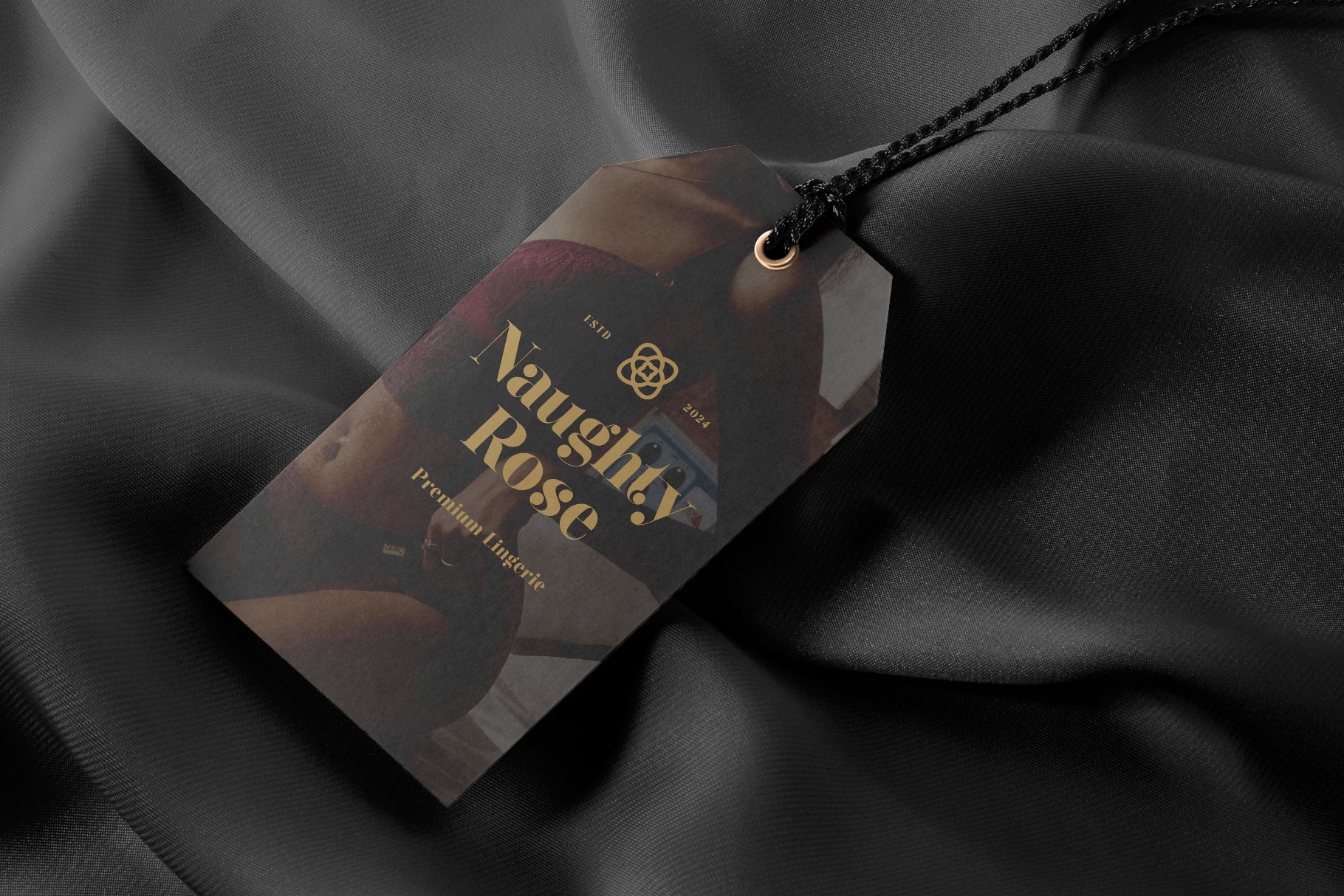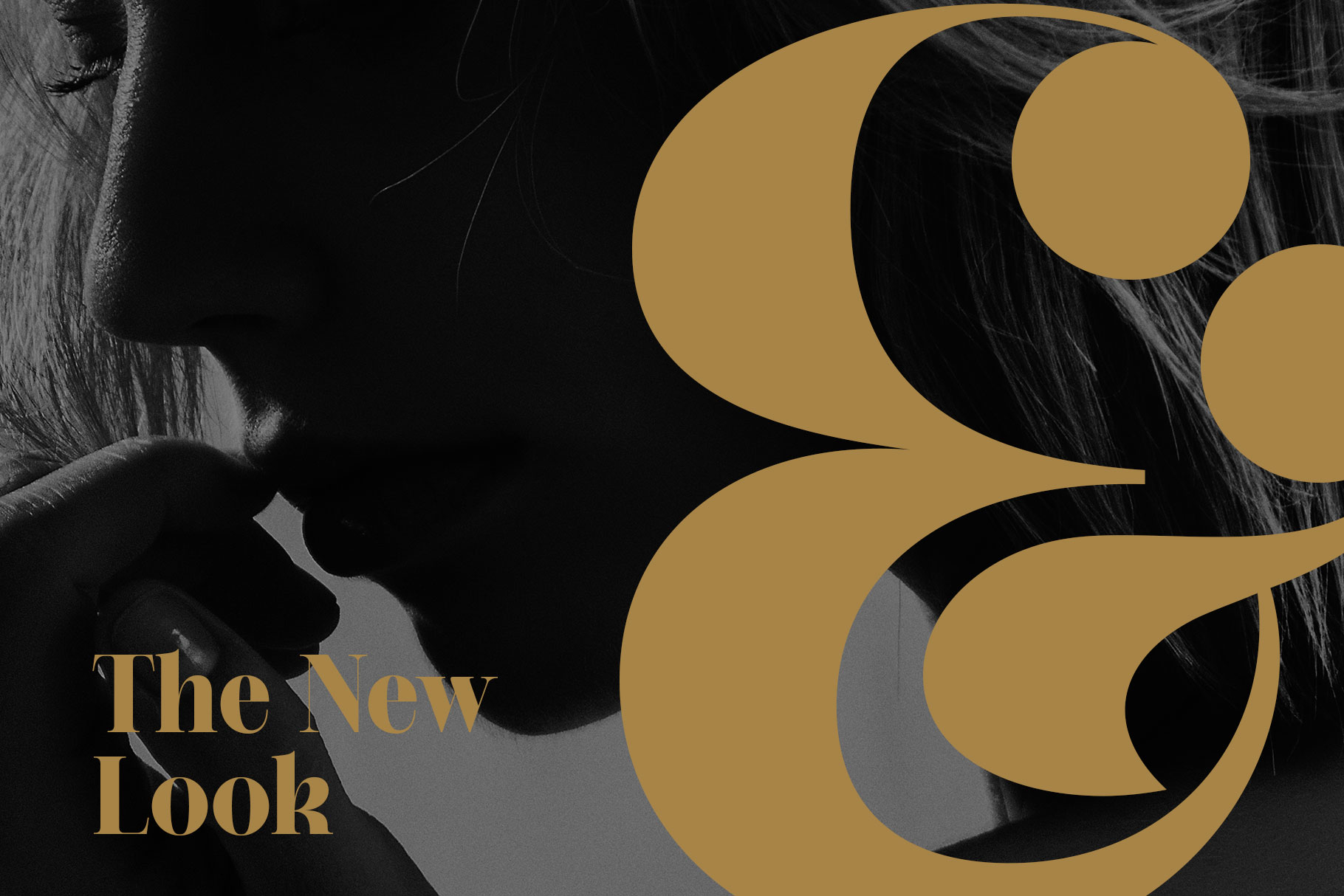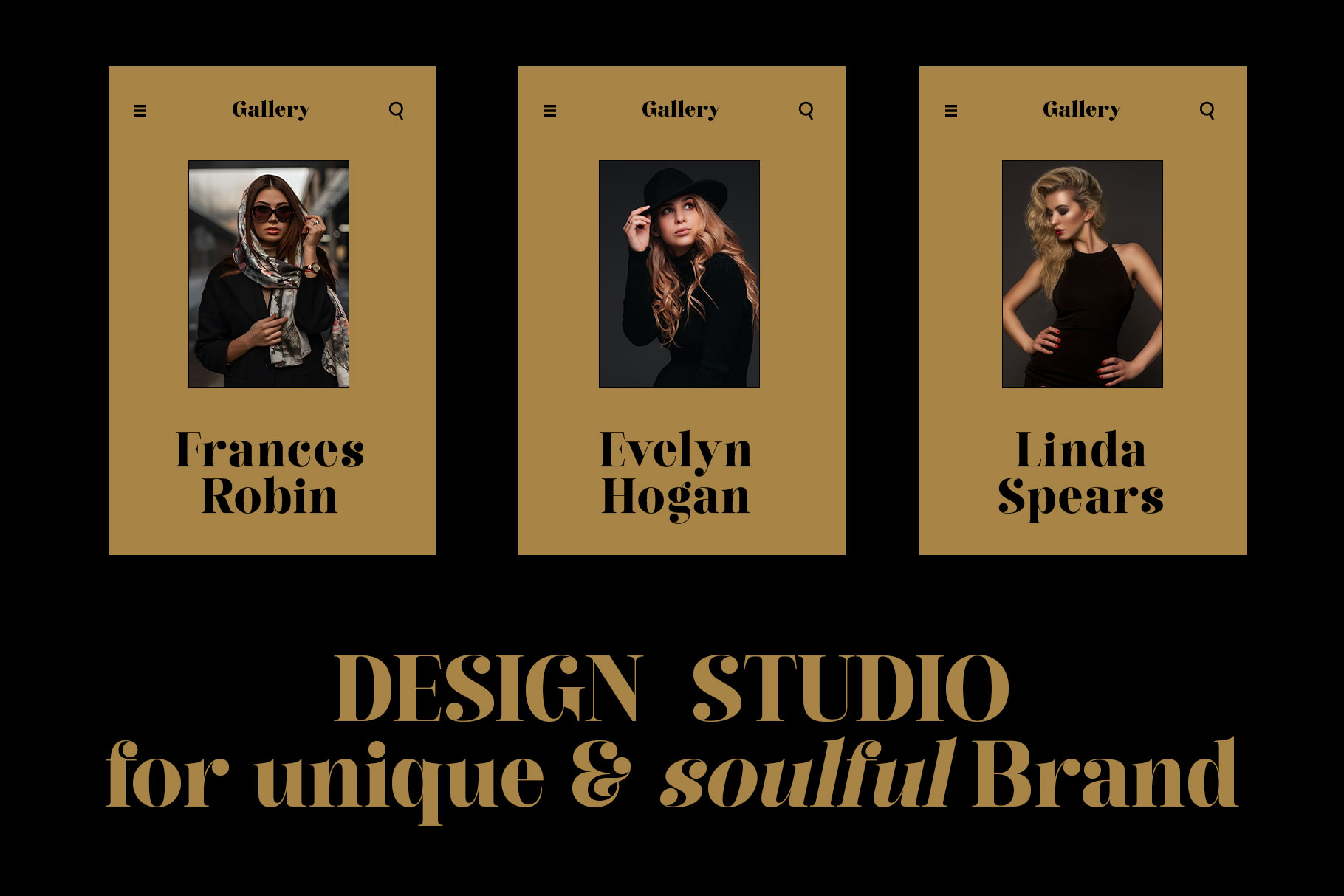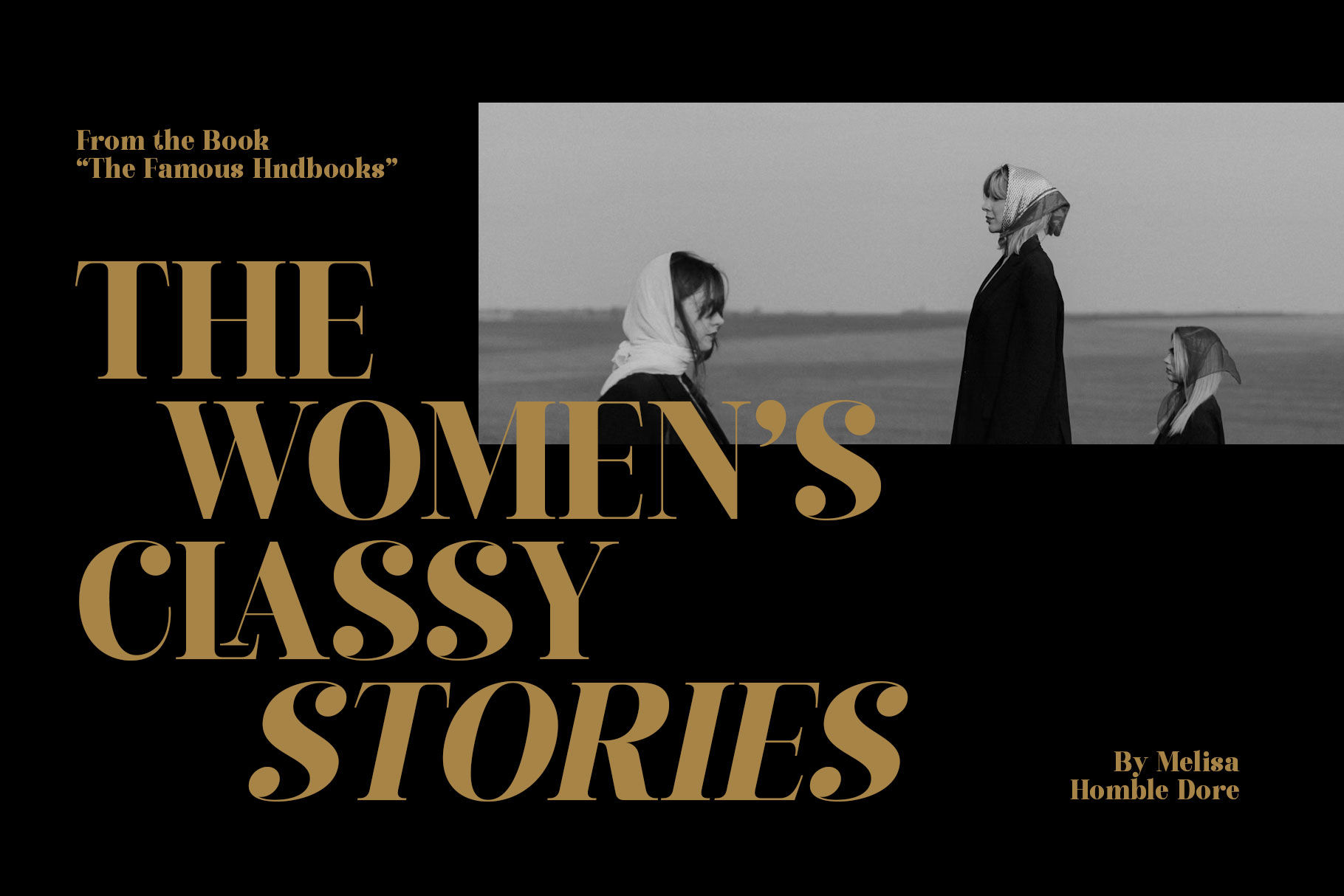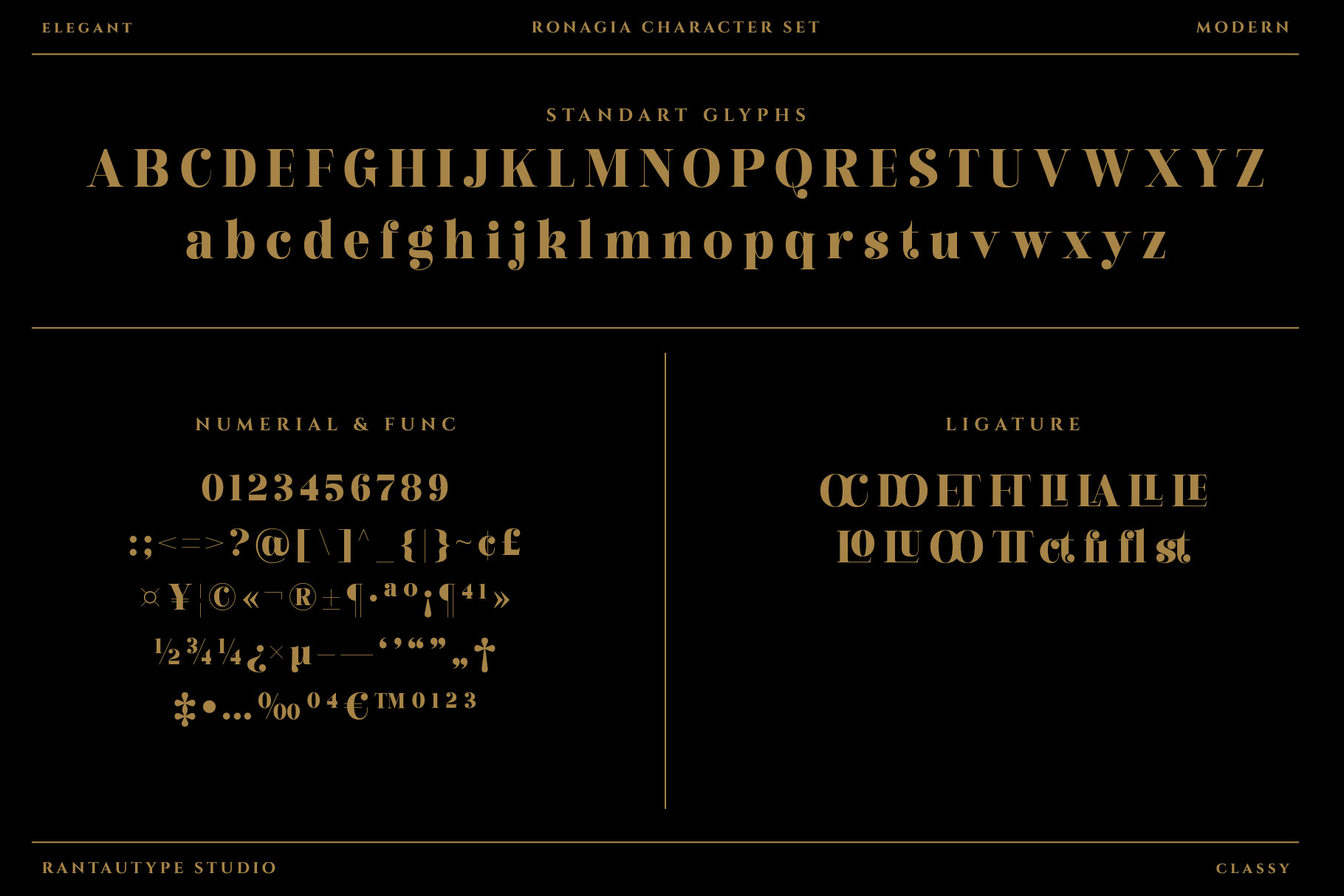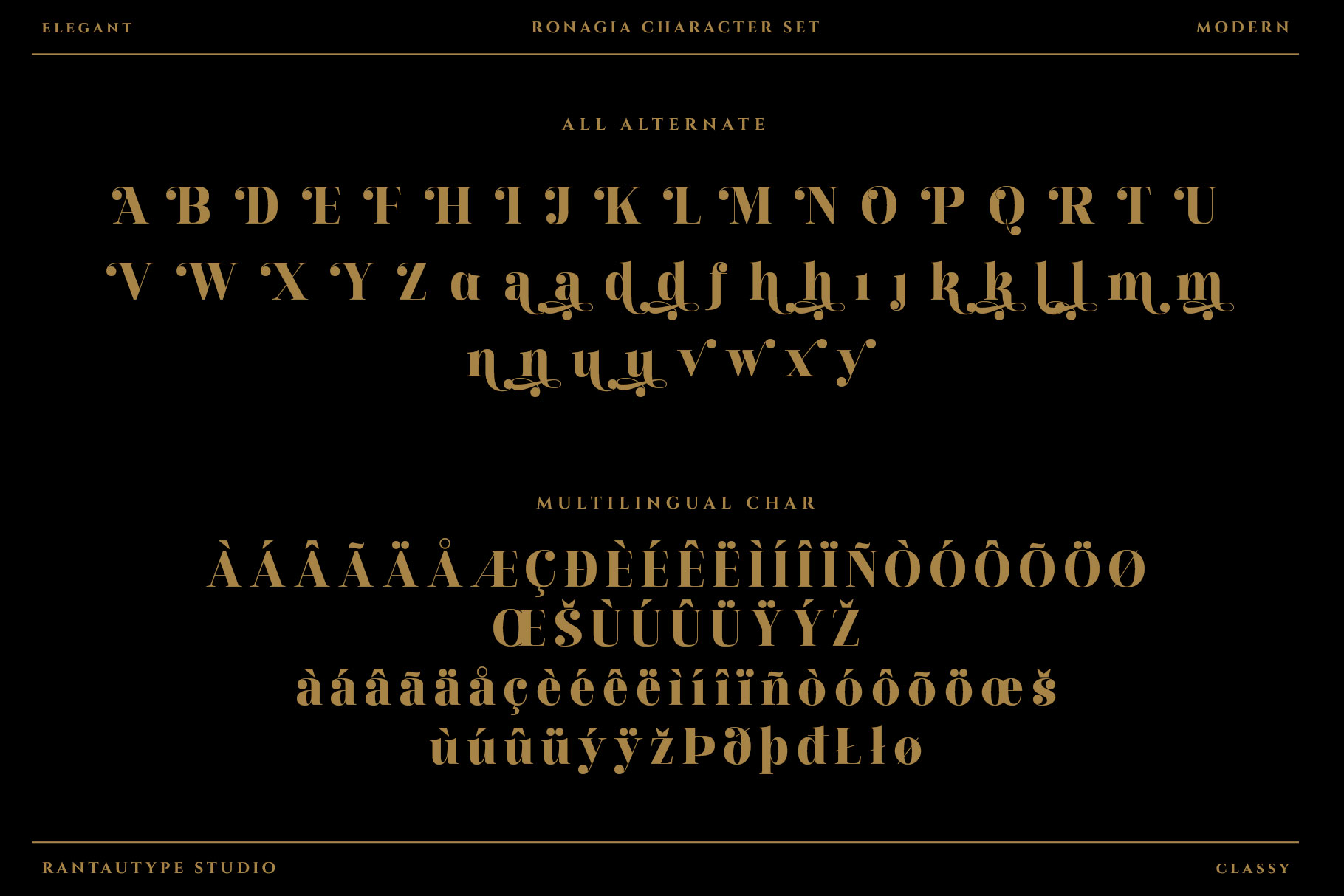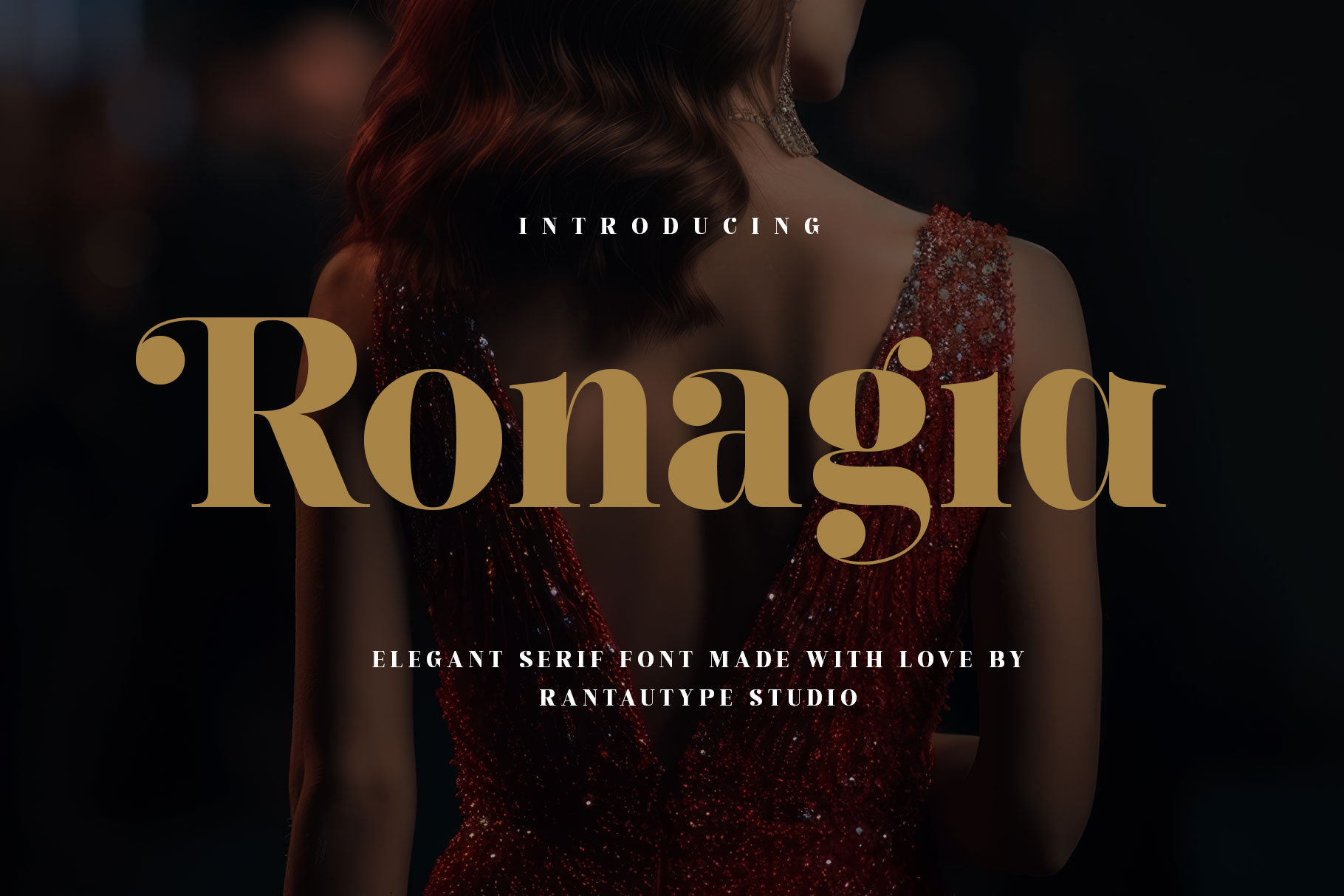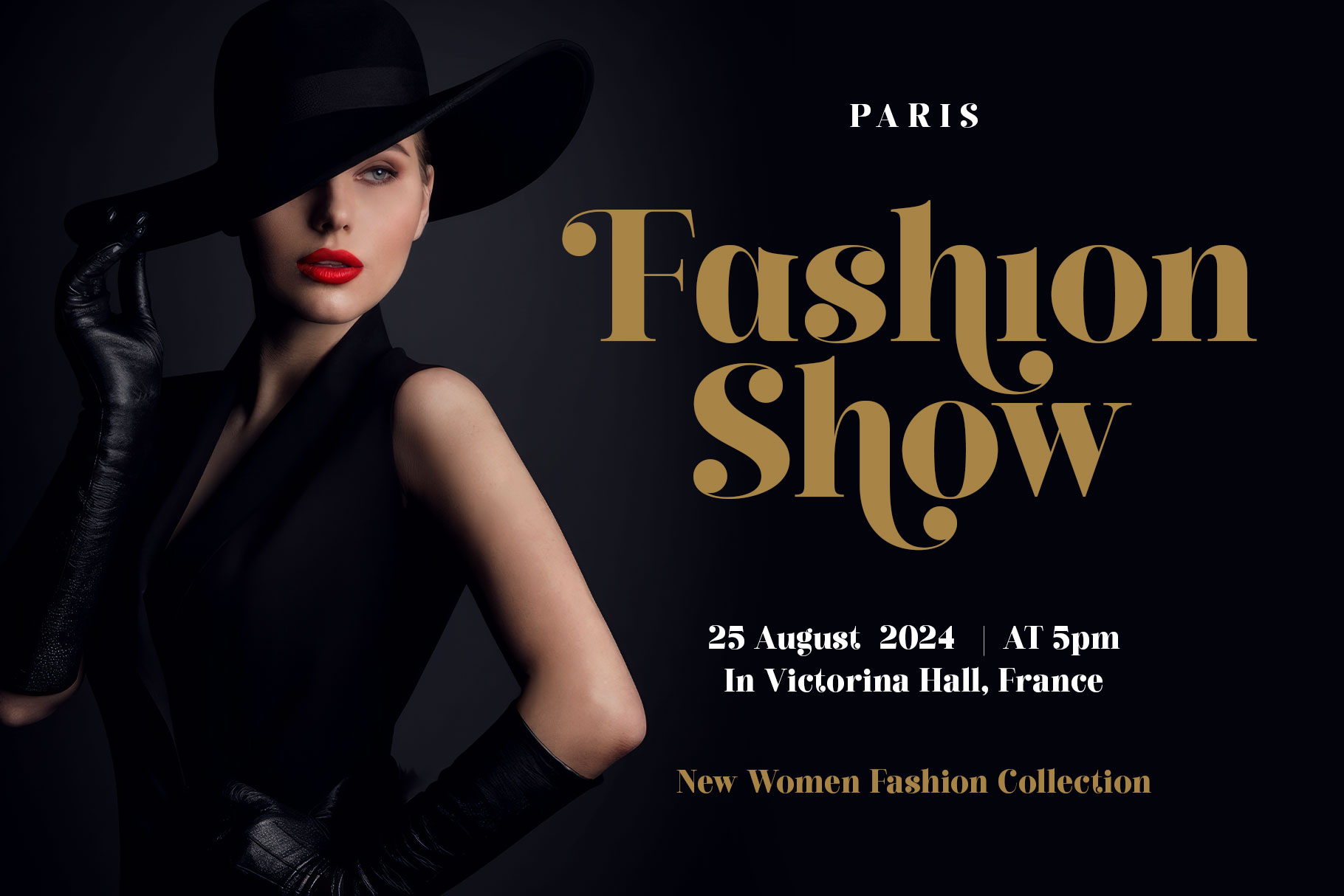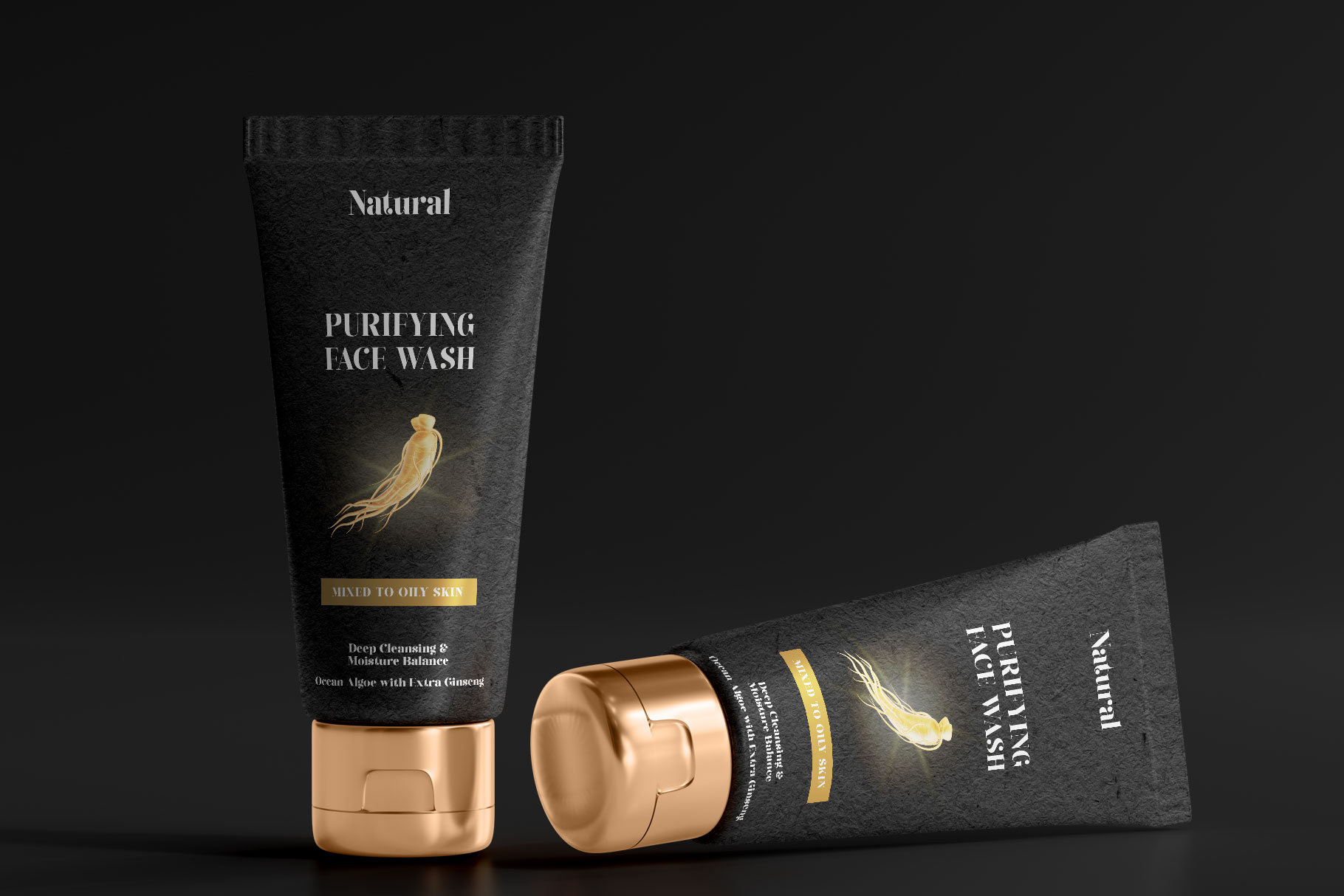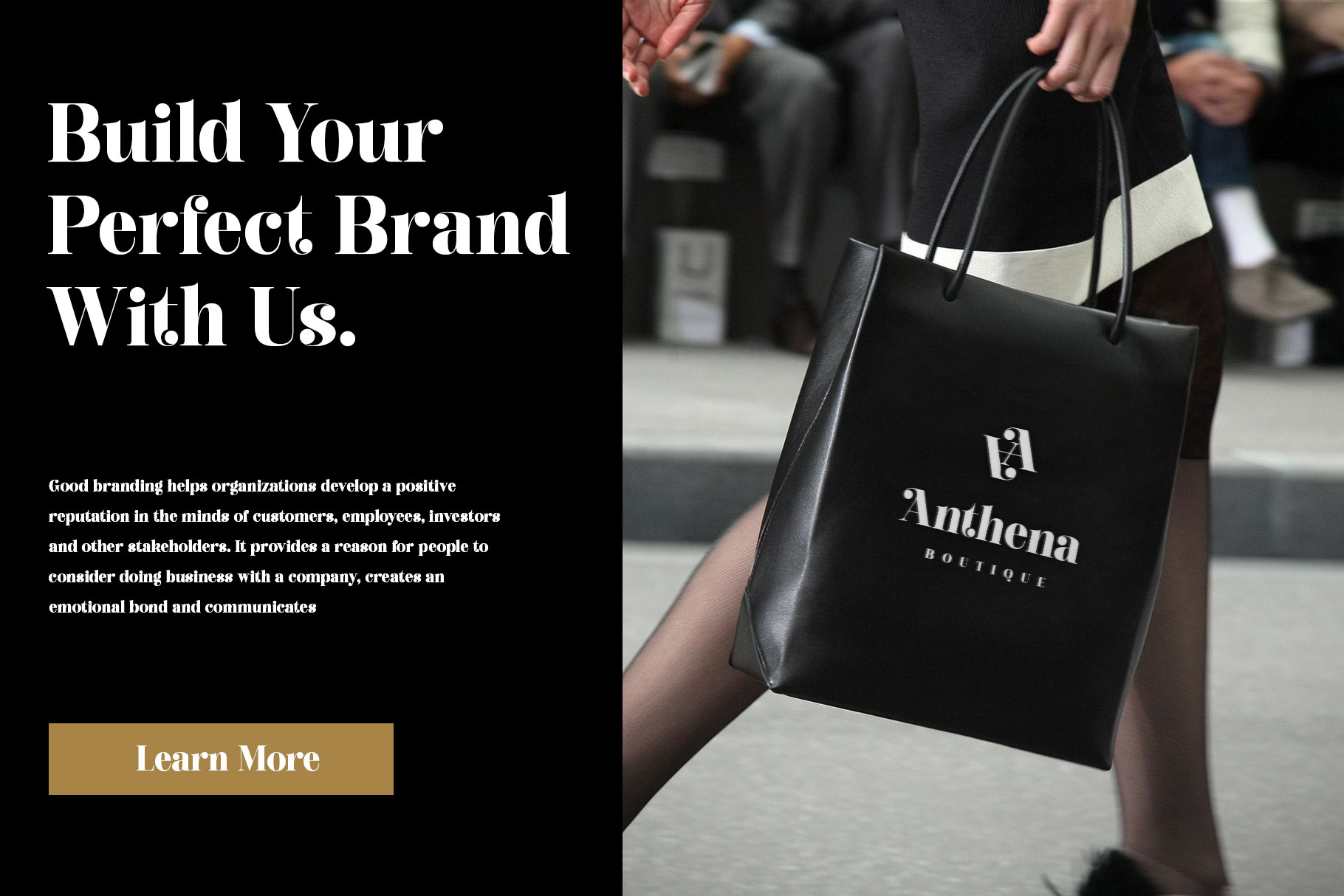
Ronagia Elegant Serif Font
Ronagia is elegant serif font inspire by luxury fashion brand. Ronagia come with bold and strong character to make your design project stand out!
Ronagia is a beautiful choice for any creative endeavor, creating elegant, modern, chic, lifestyle design such as logotype, title, cover, branding, invitations, wedding designs, display and magazine, social media posts, advertisements, printed quotes, product packaging, corporate brand, product designs, labels, photography, watermarks, special events and any other project with elegant touch.